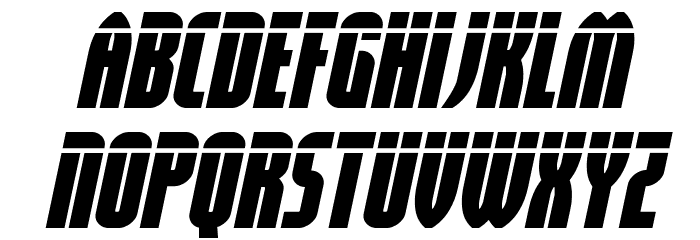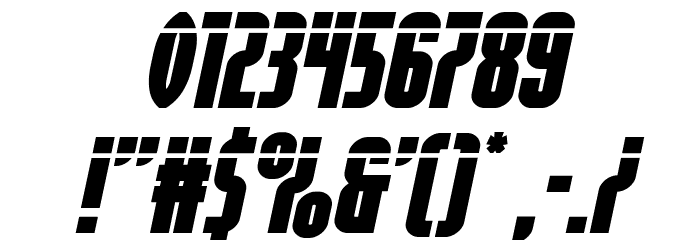
Valiant Times Laser Italic Font
This font features a bold, italicized style with a futuristic and dynamic appearance. The characters are sharply angled, giving a sense of movement and speed. The uppercase and lowercase letters maintain a consistent slant, enhancing the italic effect. The numbers and special characters follow the same design principles, ensuring uniformity across the typeface. The strokes are thick and consistent, providing a strong visual impact. This font is ideal for projects that require a modern and energetic look.
- Proposed Projects: Ideal for sports branding, tech logos, dynamic posters, and modern advertising campaigns.
- Character Spacing: Tight